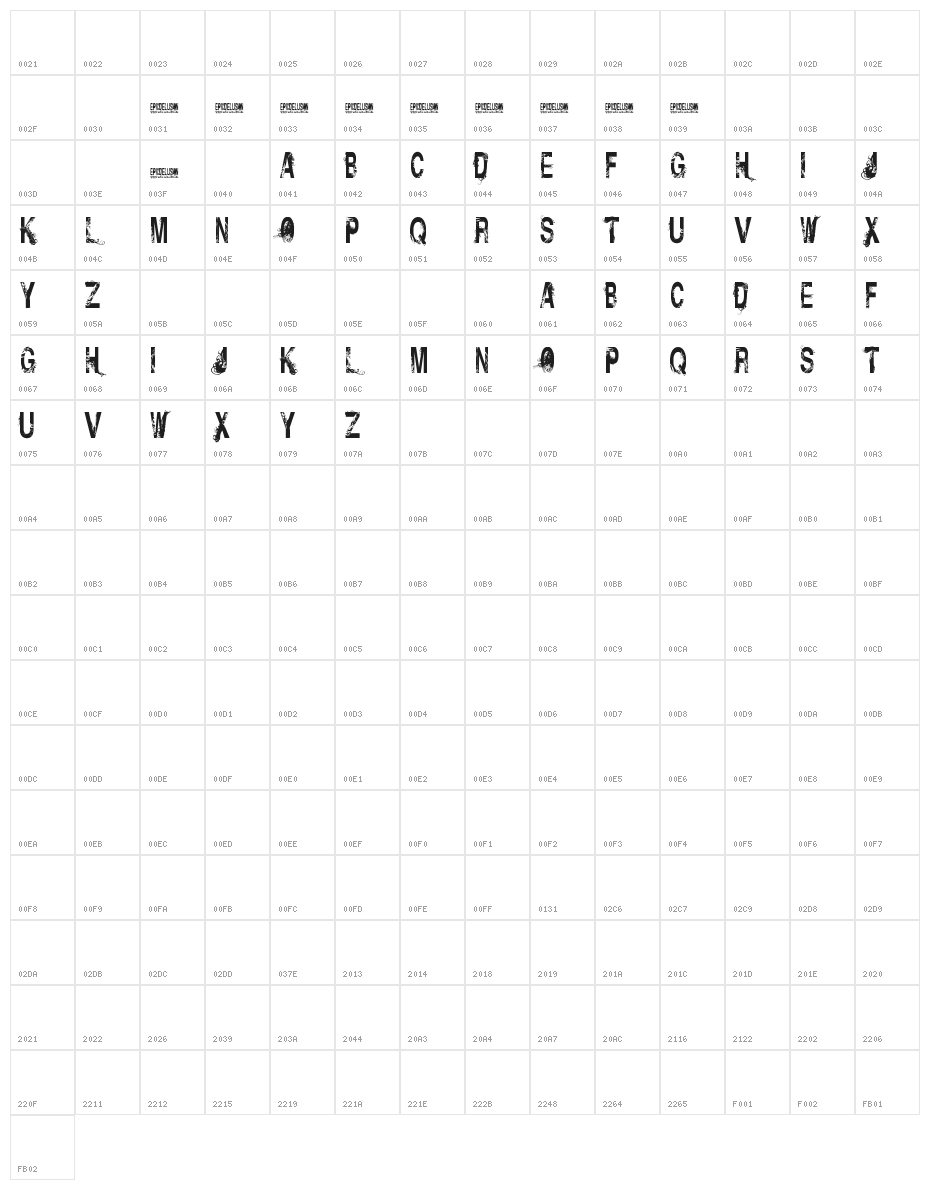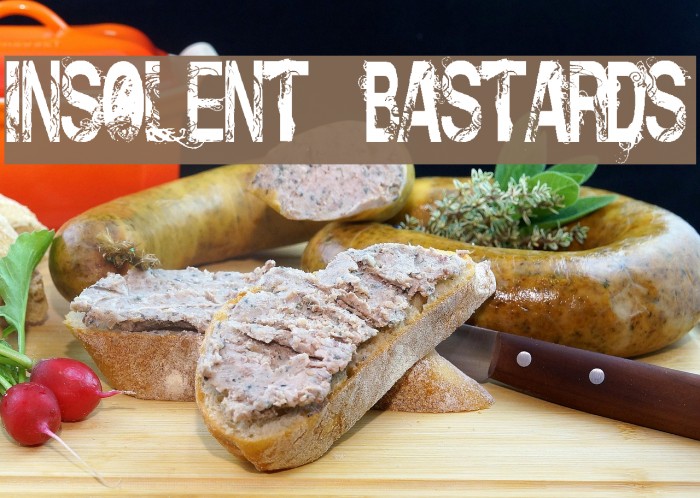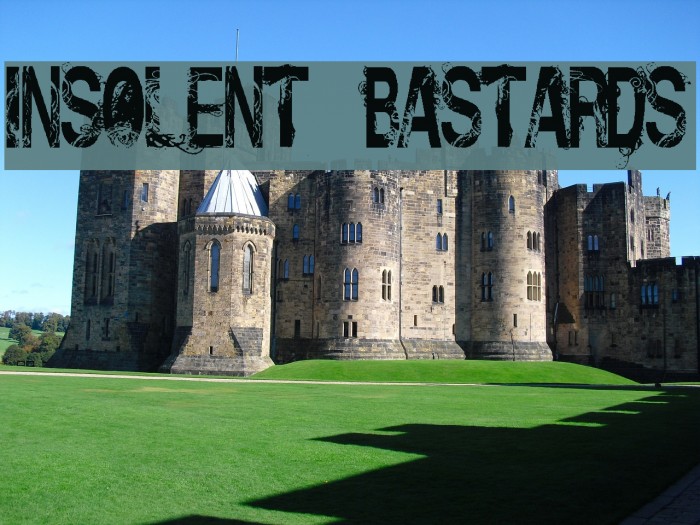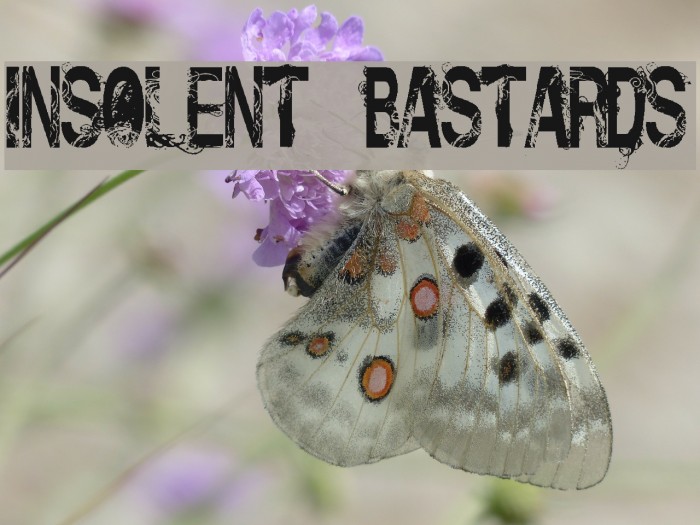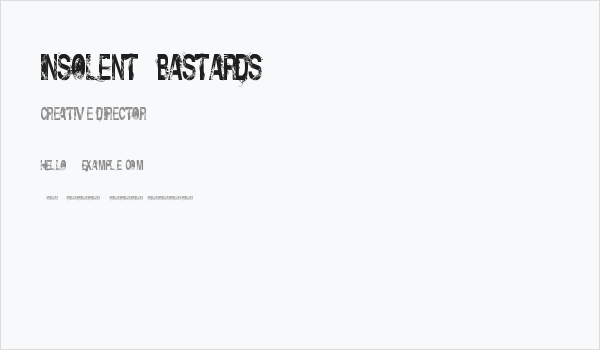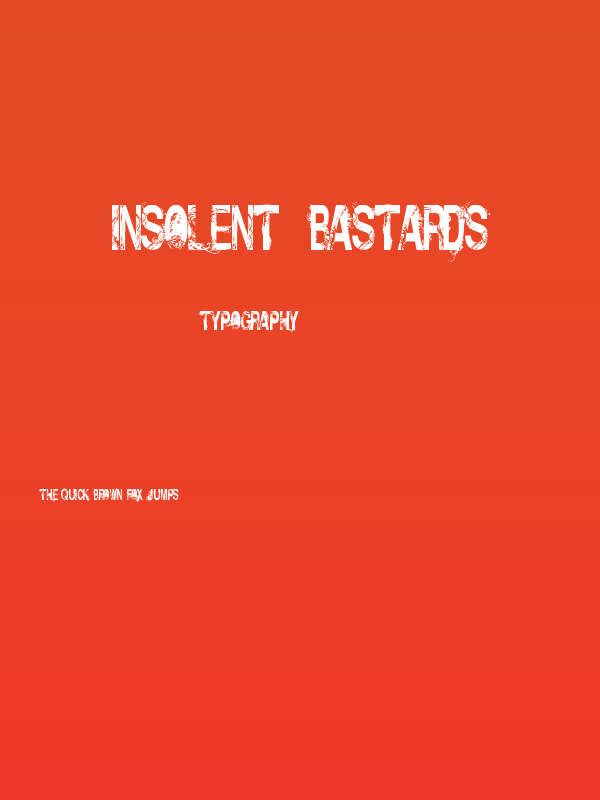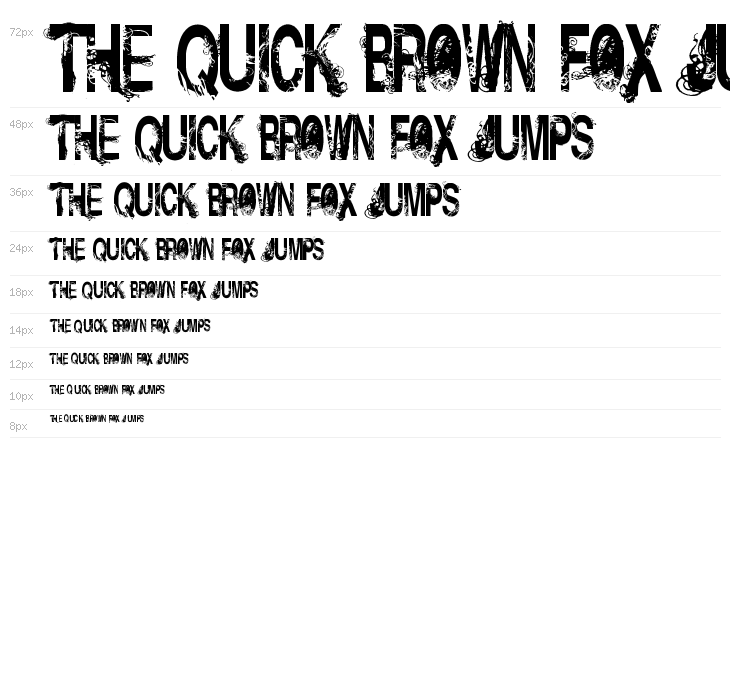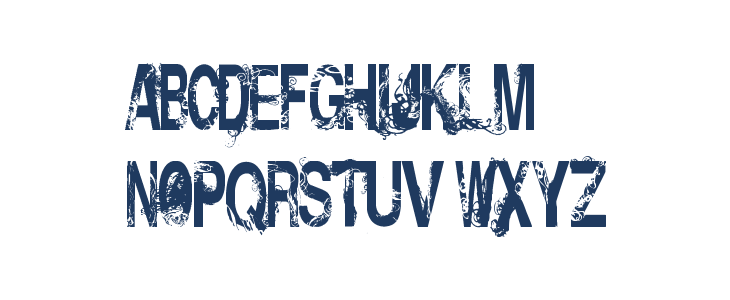
Insolent_Bastards Font
Insolent_Bastards Description
This font features a bold and aggressive style with a distressed, grunge texture that adds a chaotic and rebellious feel. The uppercase letters are heavily stylized with intricate, swirling patterns that create a sense of movement and energy. The overall appearance is rough and edgy, making it stand out with its unique decorative elements. The font's design is reminiscent of street art or graffiti, giving it an urban and contemporary vibe. It is highly decorative, with each character having a distinct and artistic flair, suitable for projects that require a strong visual impact.
| Overall Style | Modern, Urban, Grunge |
| Proposed Projects | Ideal for album covers, posters, streetwear branding, or any project needing a bold, artistic statement. |